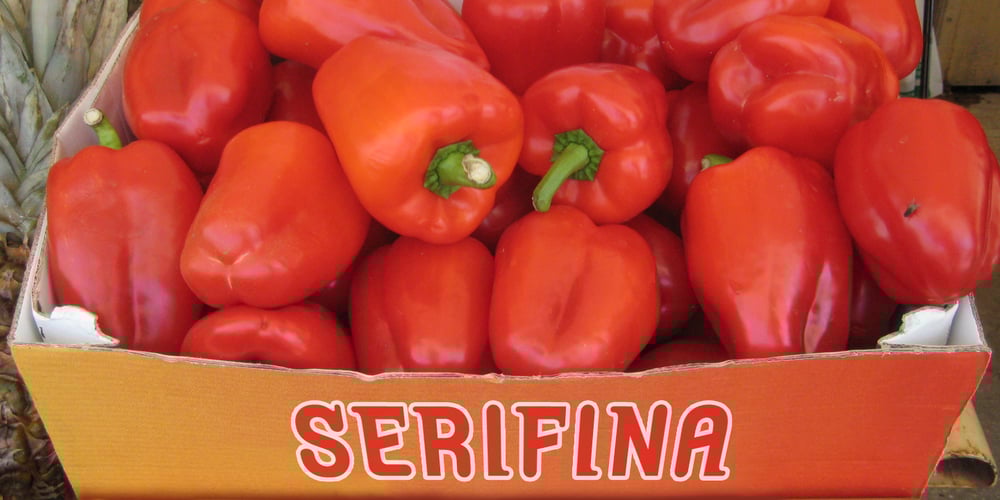
Serifina Font Family was designed by published by K-Type. Serifina contains 4 styles and family package options. This chunky display face is quite quirky, and just decorative enough to offend the purists. Serifina is a bold semi-serif which is to typography what ice cream and pizza is to gastronomy. A useful Outline version is also supplied.